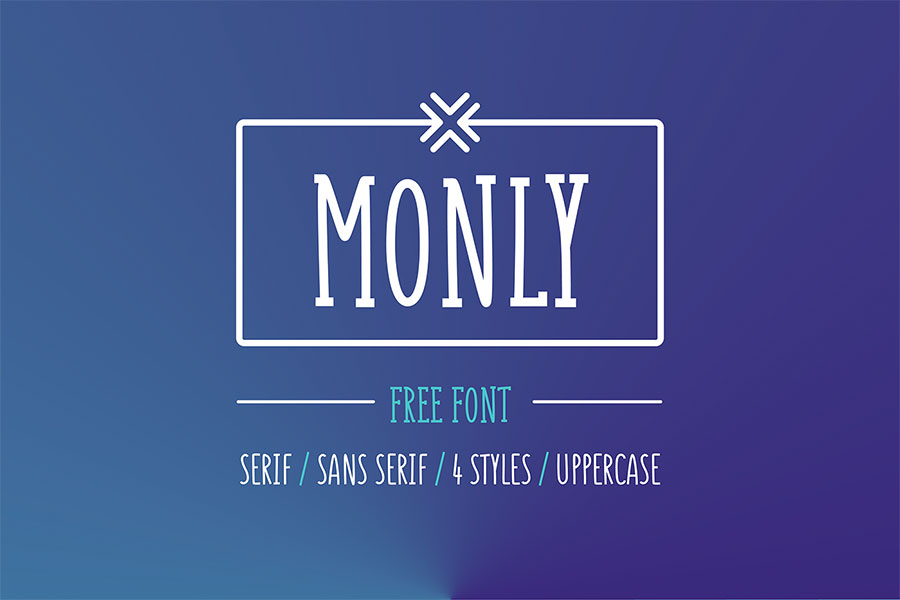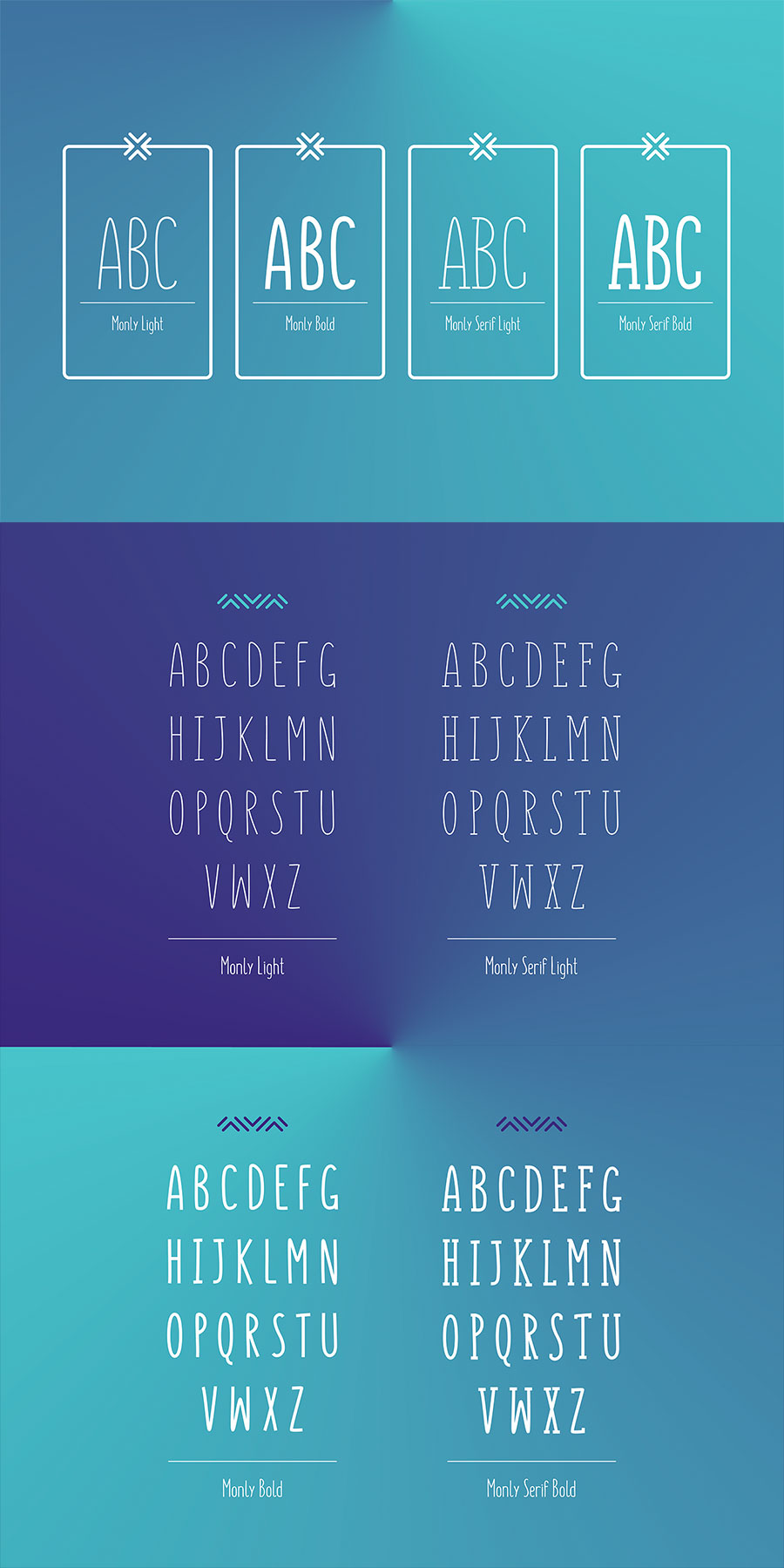
Monly is a free, playful and easy to read typeface that comes with serif and sans serif style with two weights each. The free version comes with capitalised letters supporting both Latin and Cyrillic languages. The construction of the Monly font is based on a single line curve all the way going end to end of the character strokes.
- Designer: Wildtype design
- Styles: 4
- Category: Playful, Sans Serif, Serif